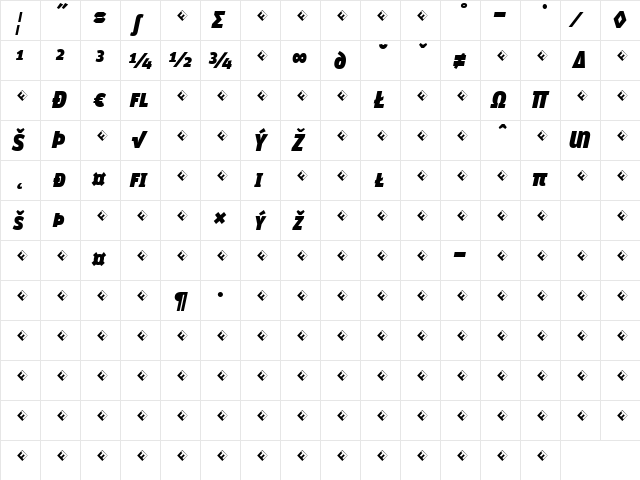
Unit-UltraSCItalicExpert Regular
| Foundry | Erik Spiekermann, Christian Schwartz; published by FontShop International for the FontFont Library |
| Designer | Erik Spiekermann, Christian Schwartz |
Design Context for Unit-UltraSCItalicExpert Typeface
Unit-UltraSCItalicExpert offers clean, dependable letterforms without strong stylistic allegiance, making it a practical choice for designers who need flexibility. Its italic angle brings a sense of urgency and motion to the letterforms.
Pro Tip: Use Unit-UltraSCItalicExpert for emphasis, pull quotes, and subheadings where its slanted energy can add rhythm to the layout.